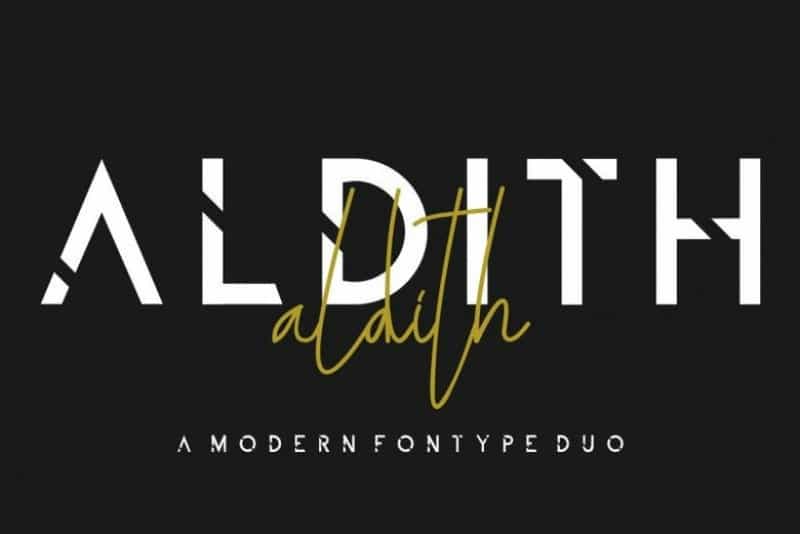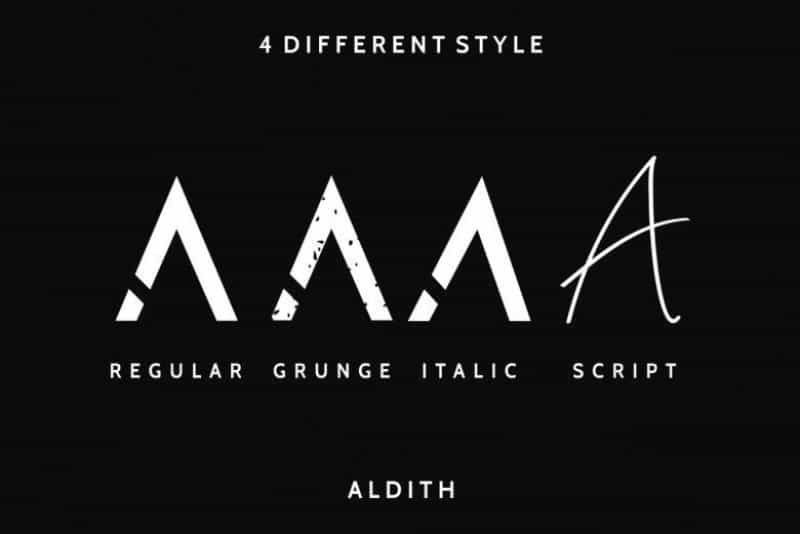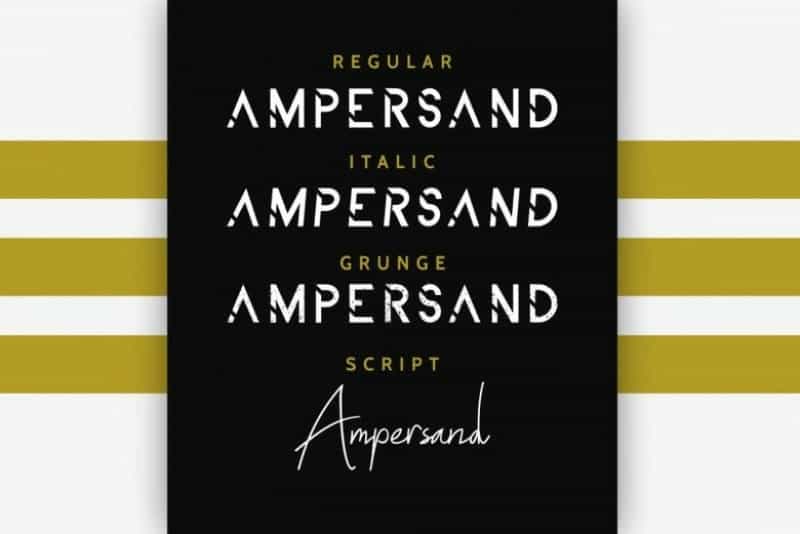
Discover ALDITH Font Duo, part of the Sans Serif Handwritten collection—a versatile and unique font perfect for adding a personal touch to your projects. Download it for free and enjoy crafting designs with style, from invitations to social media posts. This font is available exclusively for personal use, giving you the freedom to create without limits. Unlock your creativity with ALDITH Font Duo today!
New font called ALDITH – It’s a QUARTET font! contain script, italic, grunge and regular. This is combination of several styles : stylish handwritten script, vintage grunge, elegant italic, and modern fonts, It has an unique, calligraphic style, and firm character. It is perfect for branding, a logo, photography, signature, biz card, stationery, business card, signage, flyer, brochure, etc. this font is suitable for various topics graphic design needs such as wedding, real estate, services, law firm, coffee, cafe, beauty, spa, event organizer and others